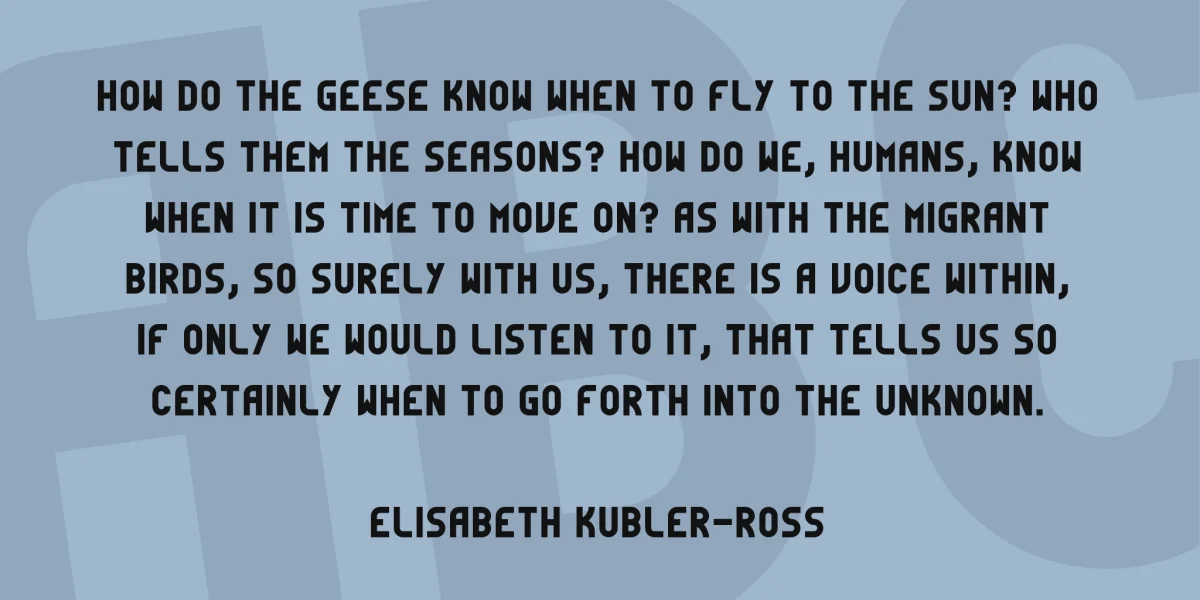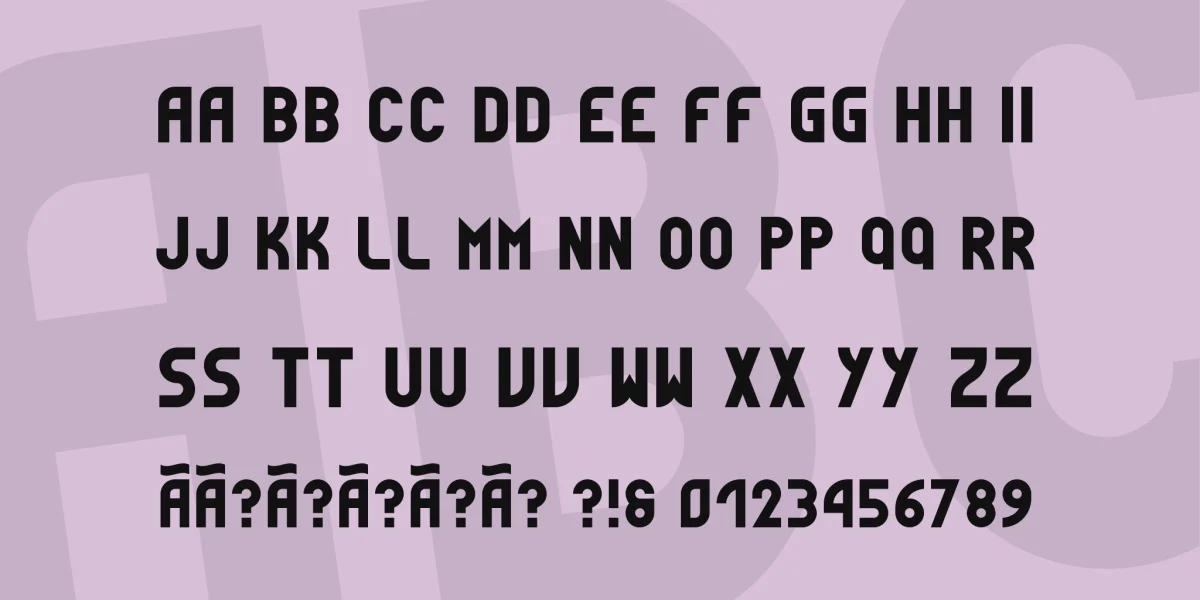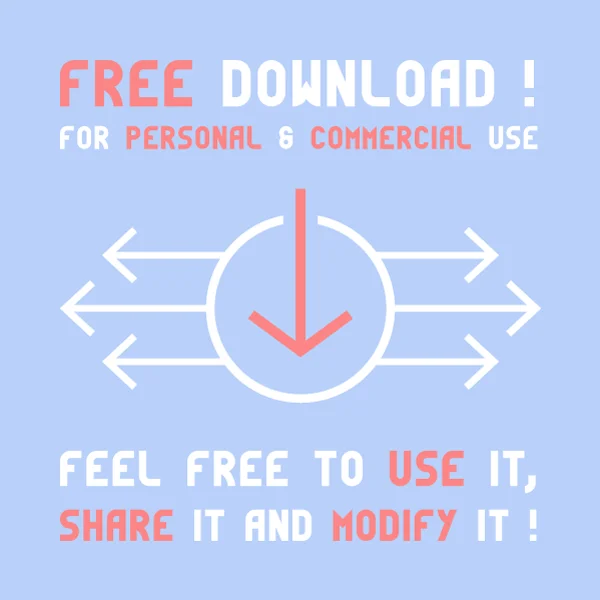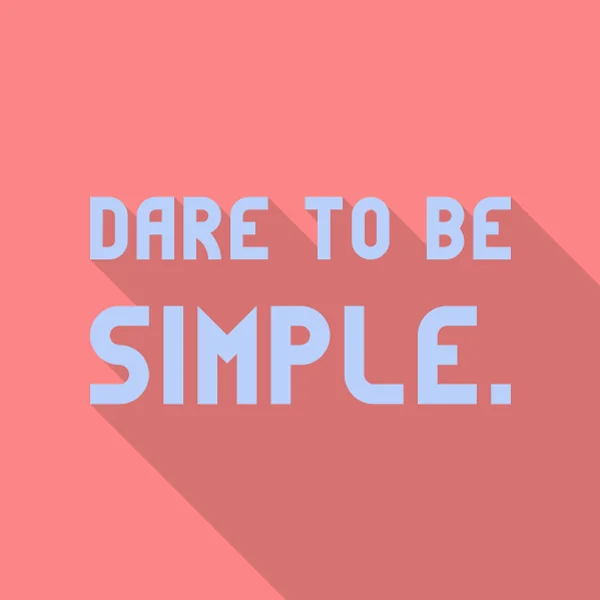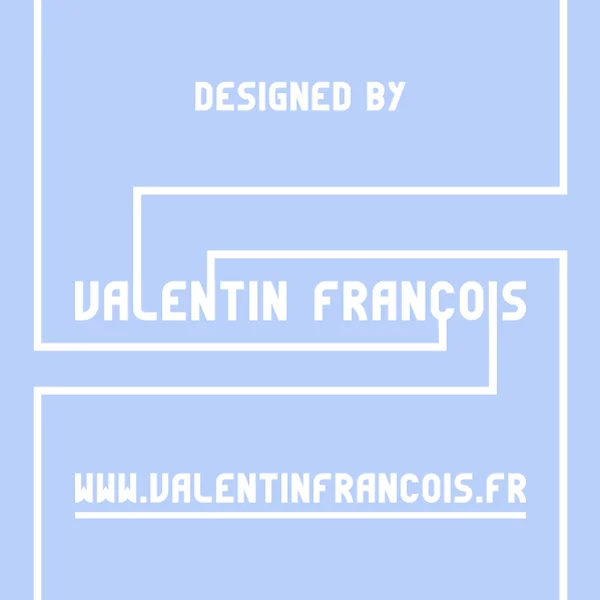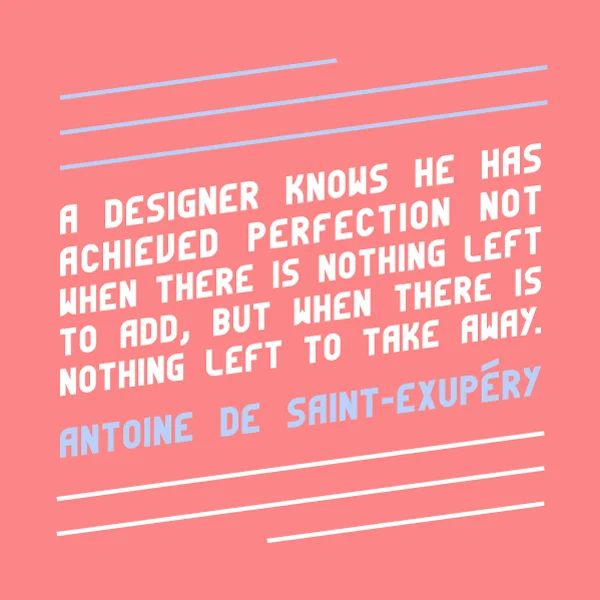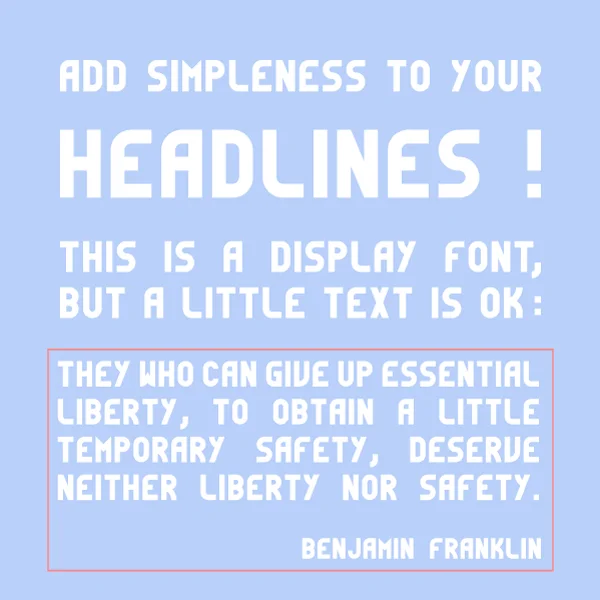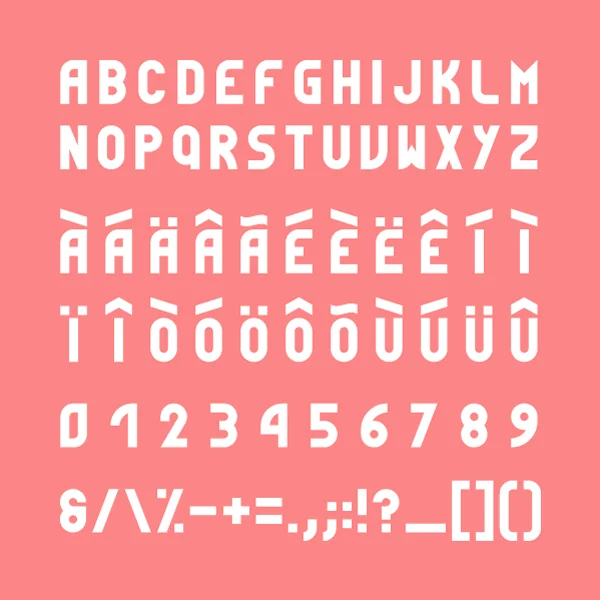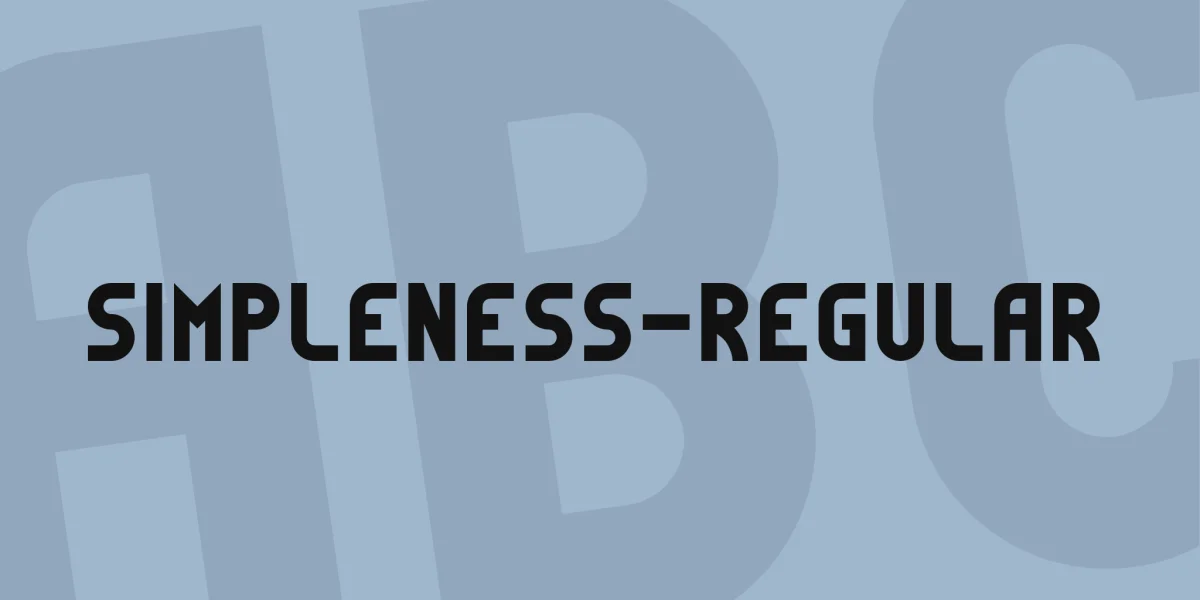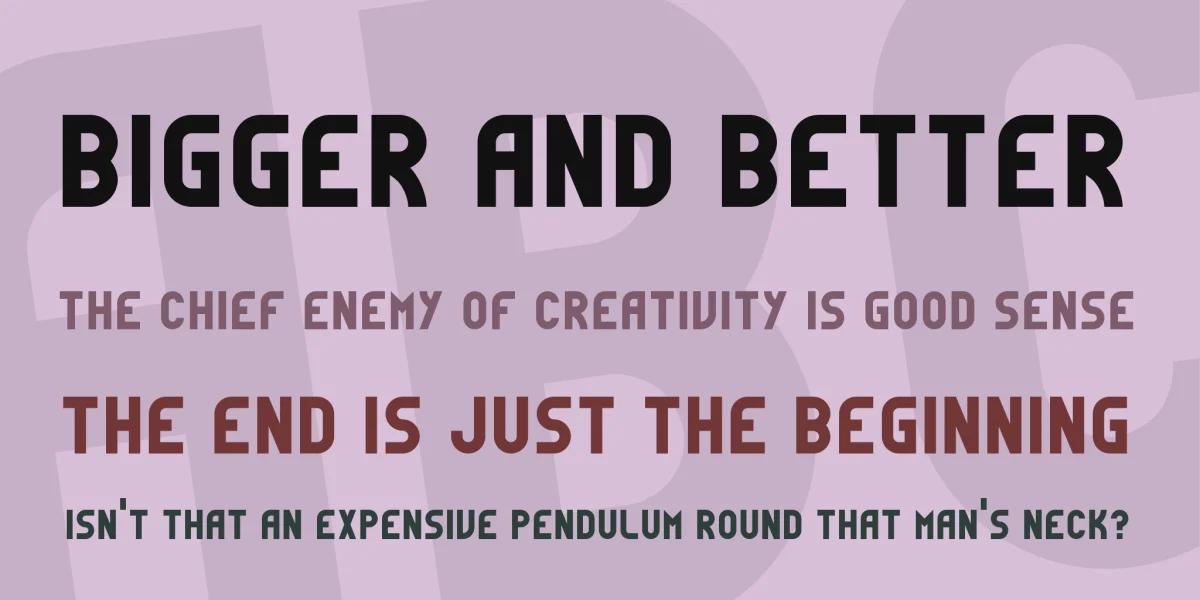
My second font. Simpleness is an all caps minimalist typeface, inspired by the Bauhaus movement. Feel free to use it or modify it as you wish. Credits are of course appreciated and I would be pleased to feature your work on my website if you use this font.